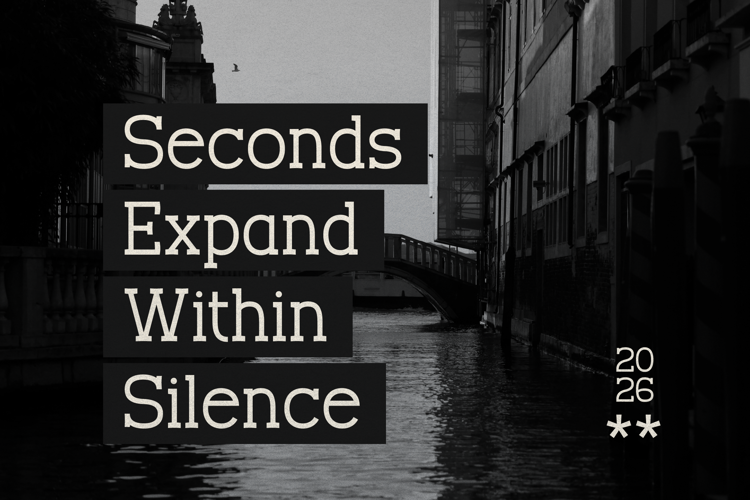
Corden Narator Font
Corden Narator | Slab Serif Typeface, is suitable for any projects such as: logos, branding projects, homeware designs, product packaging, mugs, quotes, posters, shopping bags, t-shirts, book covers, name card, invitation cards, greeting cards, label, photography, watermark, special events, and all your other lovely projects that need a Slab Serif taste.